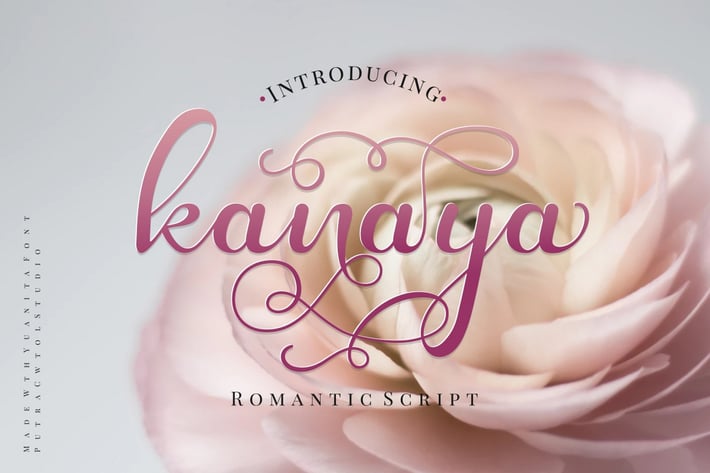
Kanaya - Romantic Font
Introducing Kanaya
Kanaya is a beautiful modern script font. Kanaya has a very beautiful alternate character, because it has a modern, elegant and luxurious swash in each lowercase character.
Kanaya perfect for wedding event, anniversary, birthday,greeting cards, logotype, branding, wedding invite and card, elegant logo, poster, packaging, stationery, website, and many more.
Come with open type feature with a lot of alternates, its help you to make great lettering.
This font is also support multi language.